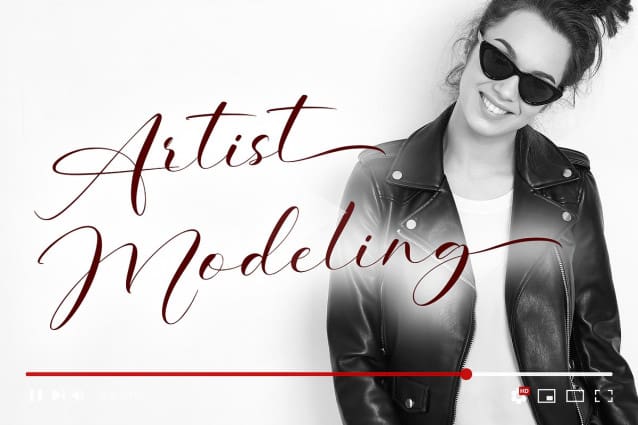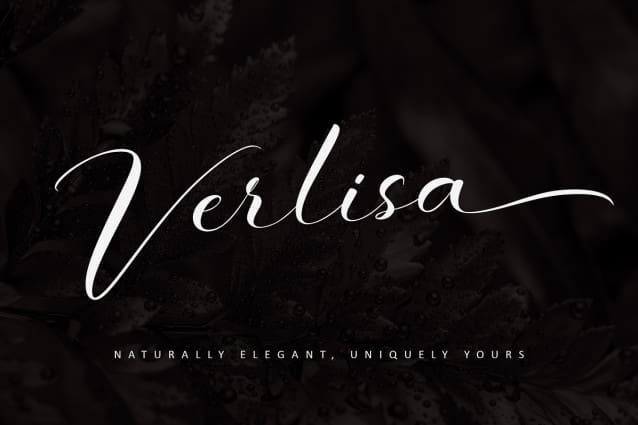
Verlisa Font
Verlisa Font, a captivating handwritten font that radiates natural elegance and charm. With its fluid strokes and impeccable letterforms, this font adds a classy touch and authenticity to your projects. Whether for branding, packaging, websites, posters, logos, advertising, or any creative endeavor requiring a dash of sophistication, “Verlisa Font” elevates your designs with its enchanting allure. Embrace the handwritten beauty and timeless charm of “Verlisa,” leaving a lasting impression with every stroke.